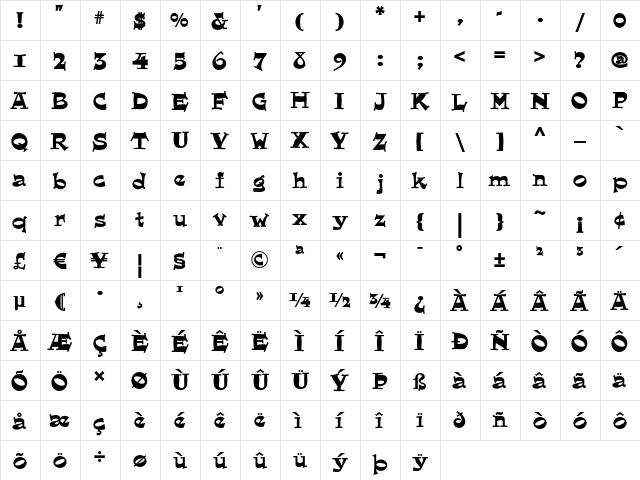
BushwhackedNF Medium
| Foundry | Nick's Fonts |
| Designer | Nick Curtis |
Design Context for BushwhackedNF Typeface
BushwhackedNF is a composed and adaptable typeface that performs quietly and consistently across a wide range of design contexts.